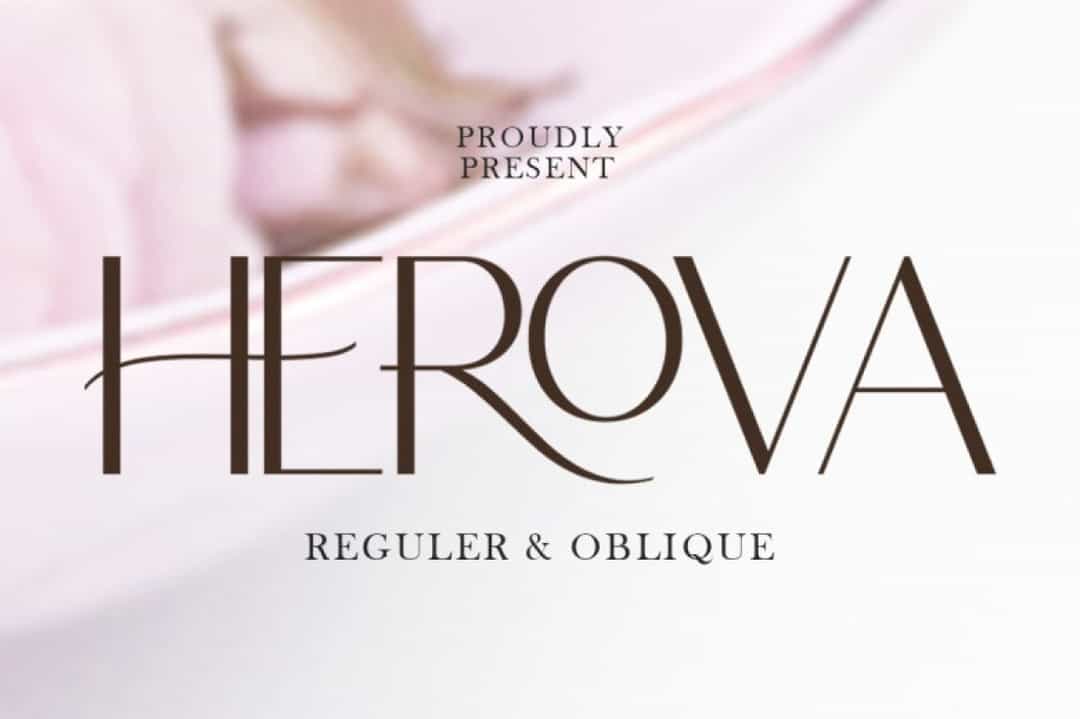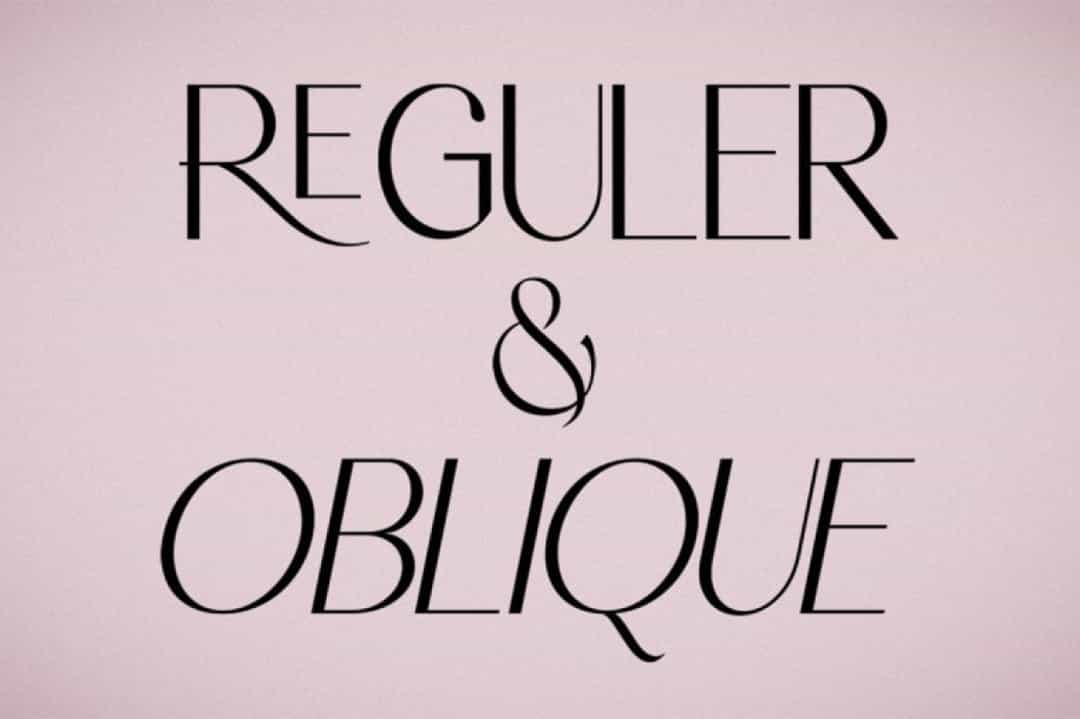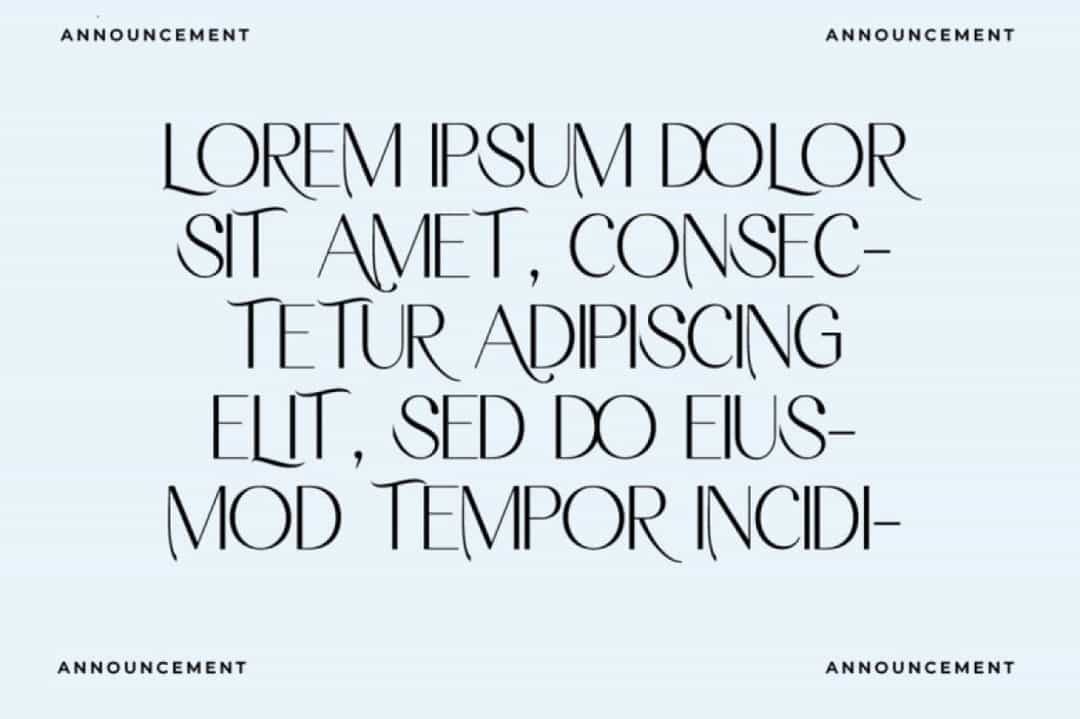
Discover Herova Font, part of the Sans Serif Serif collection—a versatile and unique font perfect for adding a personal touch to your projects. Download it for free and enjoy crafting designs with style, from invitations to social media posts. This font is available exclusively for personal use, giving you the freedom to create without limits. Unlock your creativity with Herova Font today!
HEROVA can be described as a modern sans serif font with distinctive features. Easily customizable, this font looks good when applied to various design concepts like designs, ending styles, heavy weight and high contrast fonts which makes them suitable for feminine logos or branding for fashion or editorial companies, design heads etc.